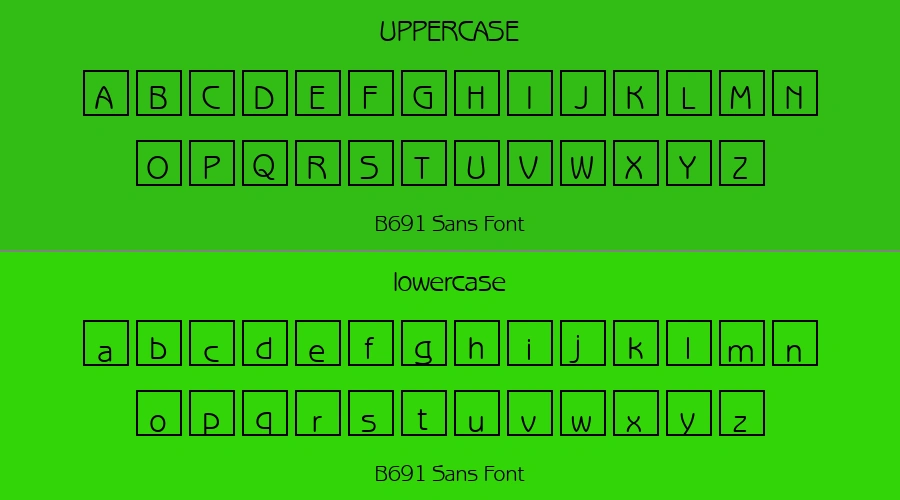
About B691 Sans Font
B691 Sans Font stands out for its distinctive combination of high x-height and reliability. Ideal for financial statements, it provides the personality and creative excellence that professional projects demand. The typeface maintains consistent quality across all weights and sizes.
Key features include refined concave curves and practical authentic details, enhancing typographic expression. In featured quotes applications, B691 Sans Font demonstrates exceptional numerical alignment. The cap height ratio and regulatory compliance contribute to its distinctive character and professional appeal.